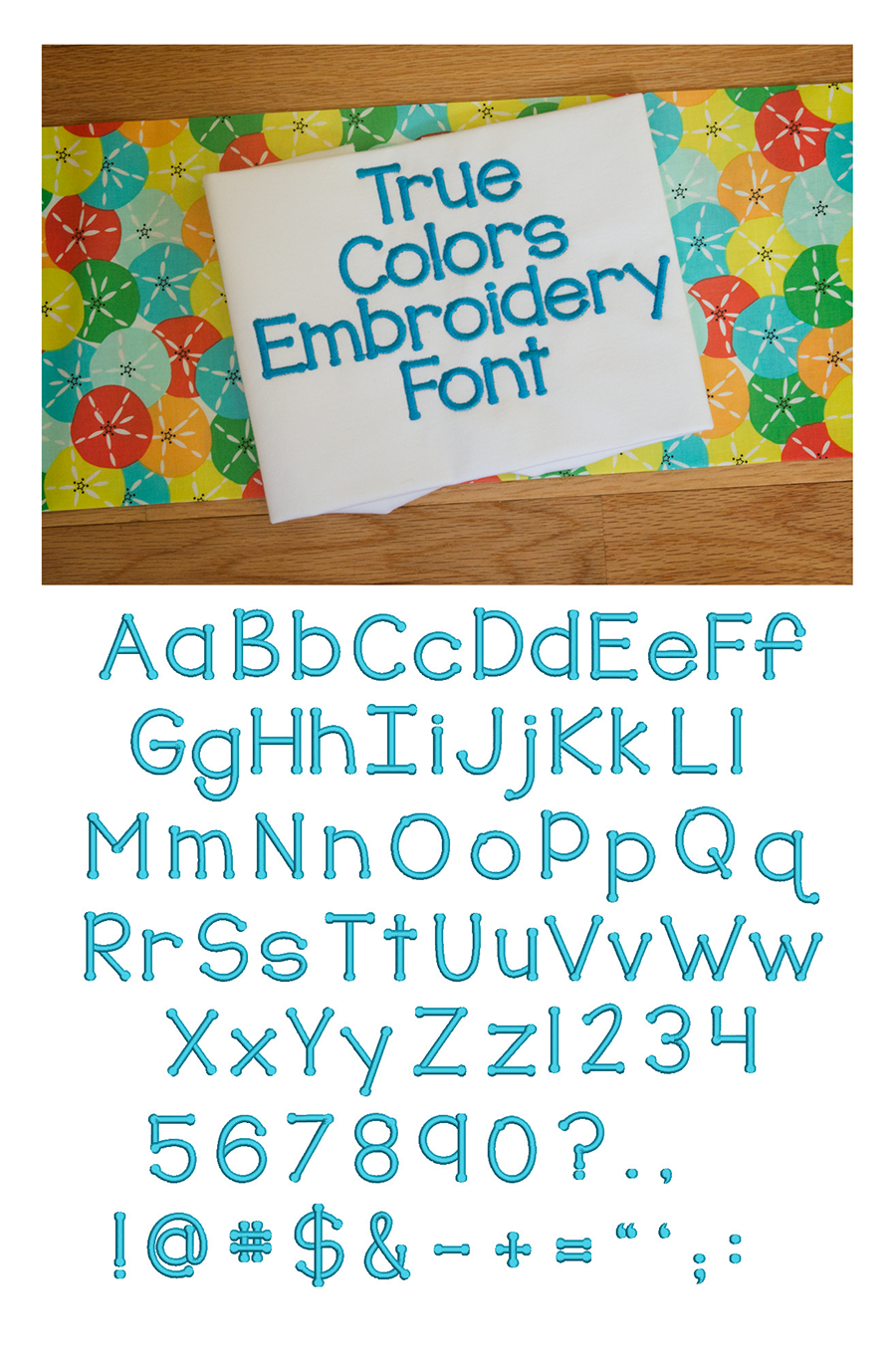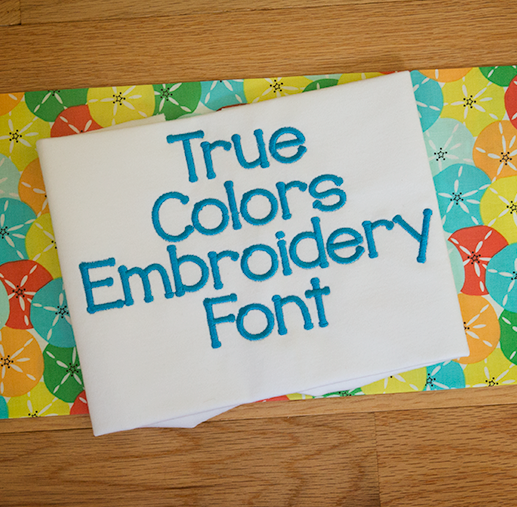
True Colors Satin Stitch Embroidery Font
A cute embroidery font with dots..simple and fun....perfect for both boys and girls! All of our font alphabets are 100% manually digitized to bring you maximum stitch quality.